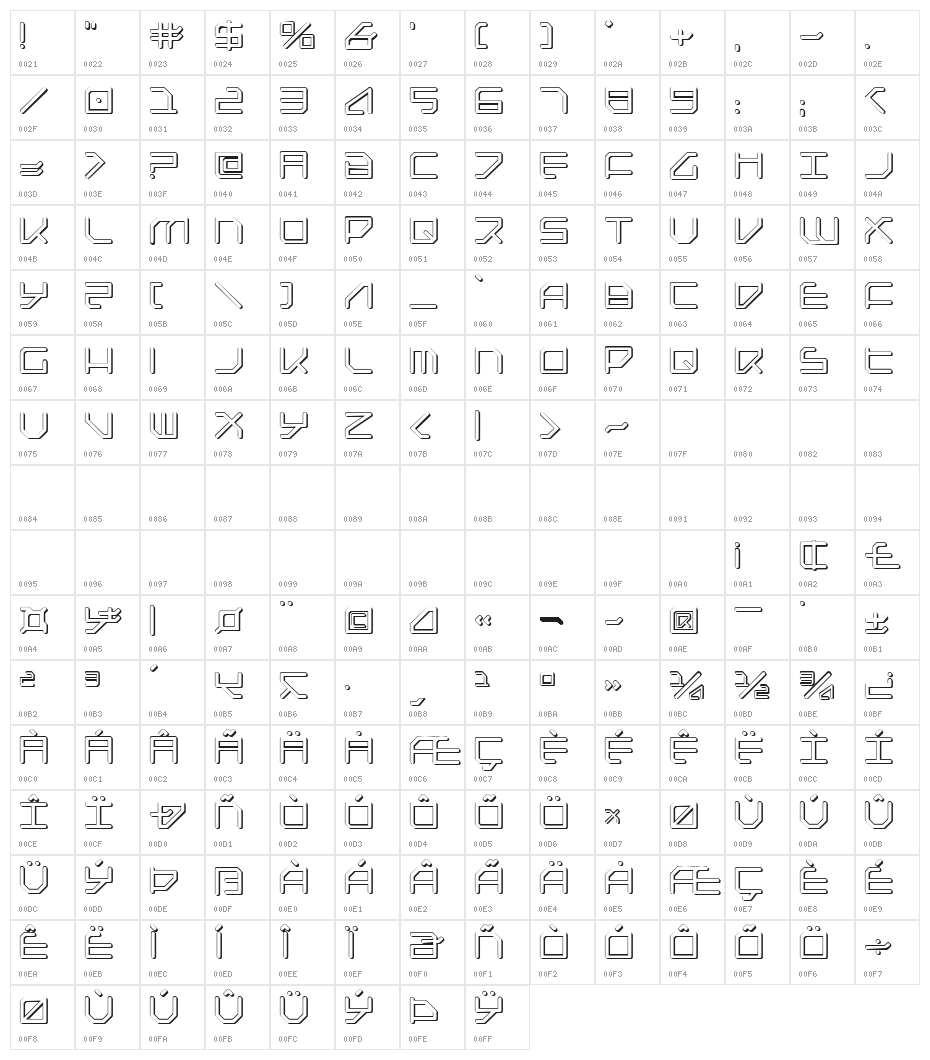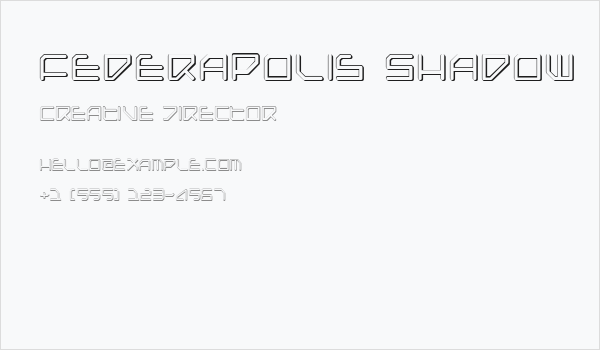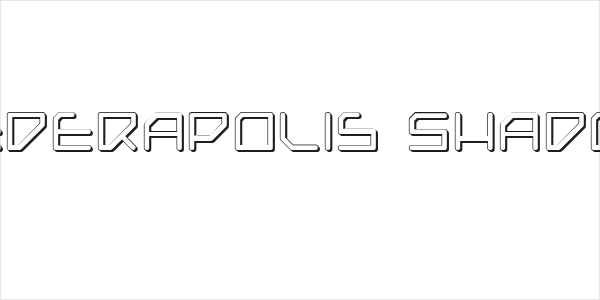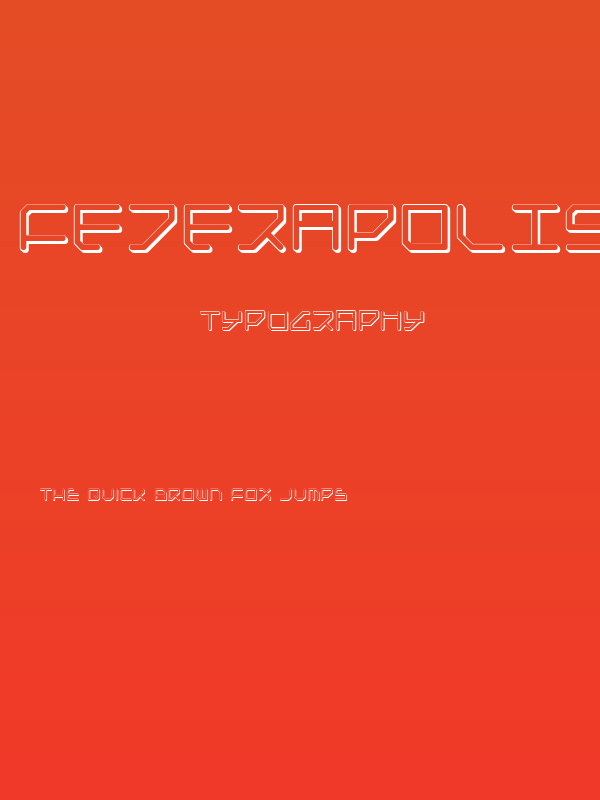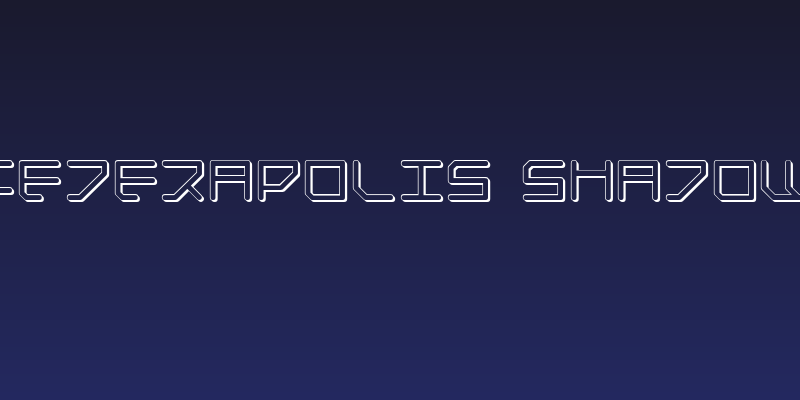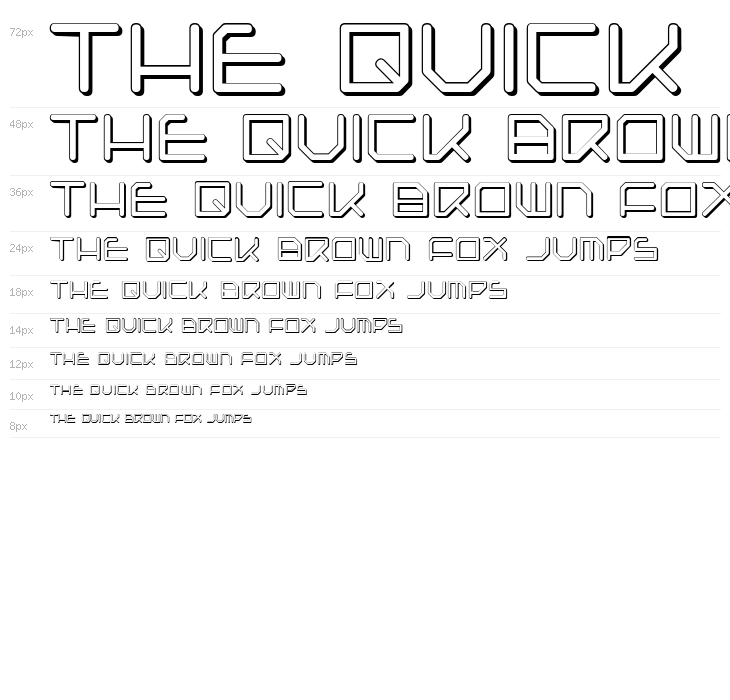
Federapolis Shadow Font
Federapolis Shadow Description
This font features a futuristic and geometric design with a distinct hollow outline style. Each character is crafted with precision, showcasing a blend of straight lines and sharp angles that create a modern, tech-inspired aesthetic. The uppercase and lowercase letters maintain a consistent structure, offering a cohesive look across all characters. Numbers and special characters are designed to match the overall style, ensuring uniformity. The font's unique appearance makes it ideal for projects that require a contemporary and innovative touch.
| Proposed Projects | Ideal for tech branding, sci-fi themed designs, video game interfaces, and modern advertising campaigns. |